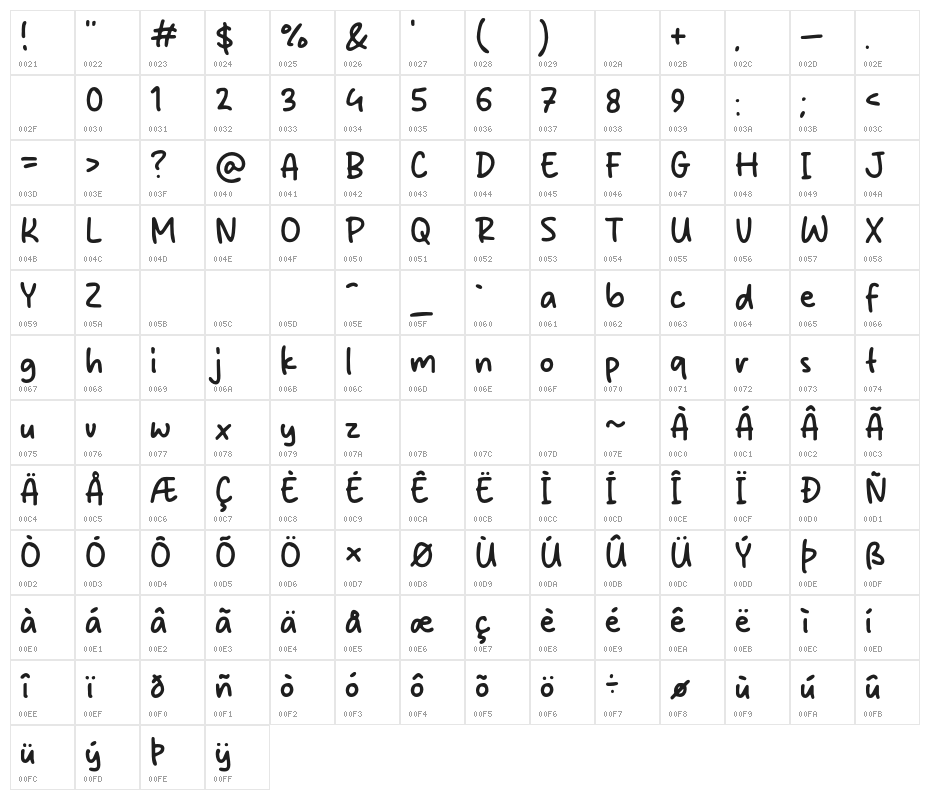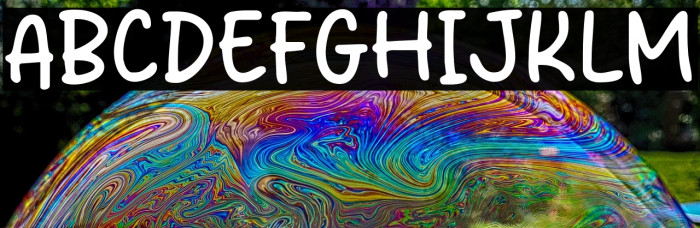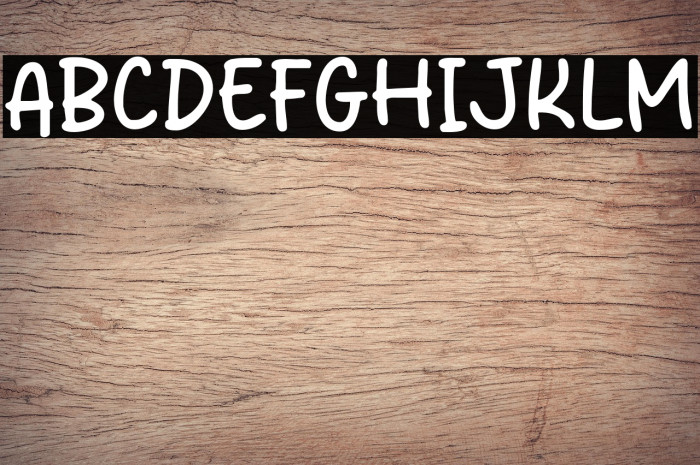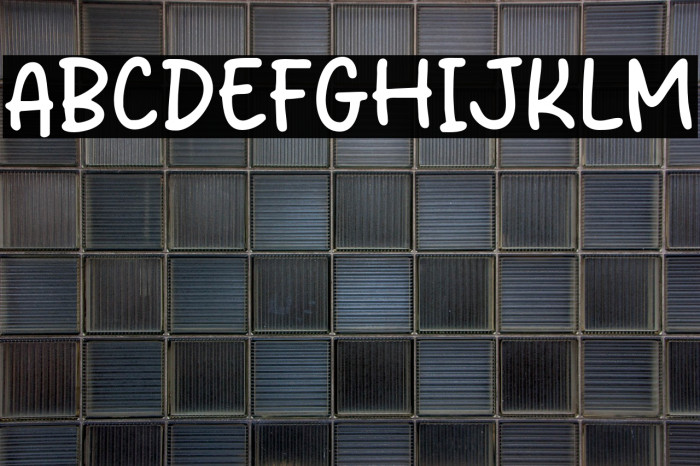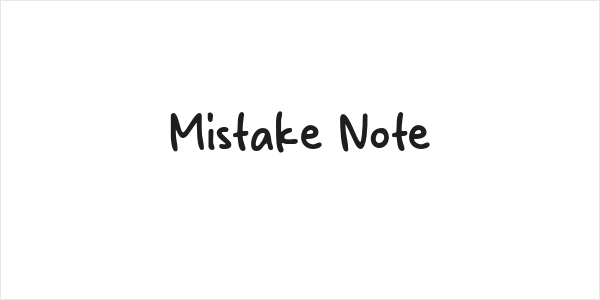
Mistake Note Font
Mistake Note Description
A playful, rounded handwritten typeface with consistent stroke width, casual curves, and a friendly, informal appearance. The characters are slightly irregular, mimicking natural handwriting, and the overall look is approachable and easy to read.
| Overall Style | Playful, Informal, Friendly |
| Use Case | Headlines, Short text, Posters, Branding, Educational materials |
| Proposed Projects | ChildrenΓ’β¬β’s books, greeting cards, informal posters, educational materials, playful branding. |